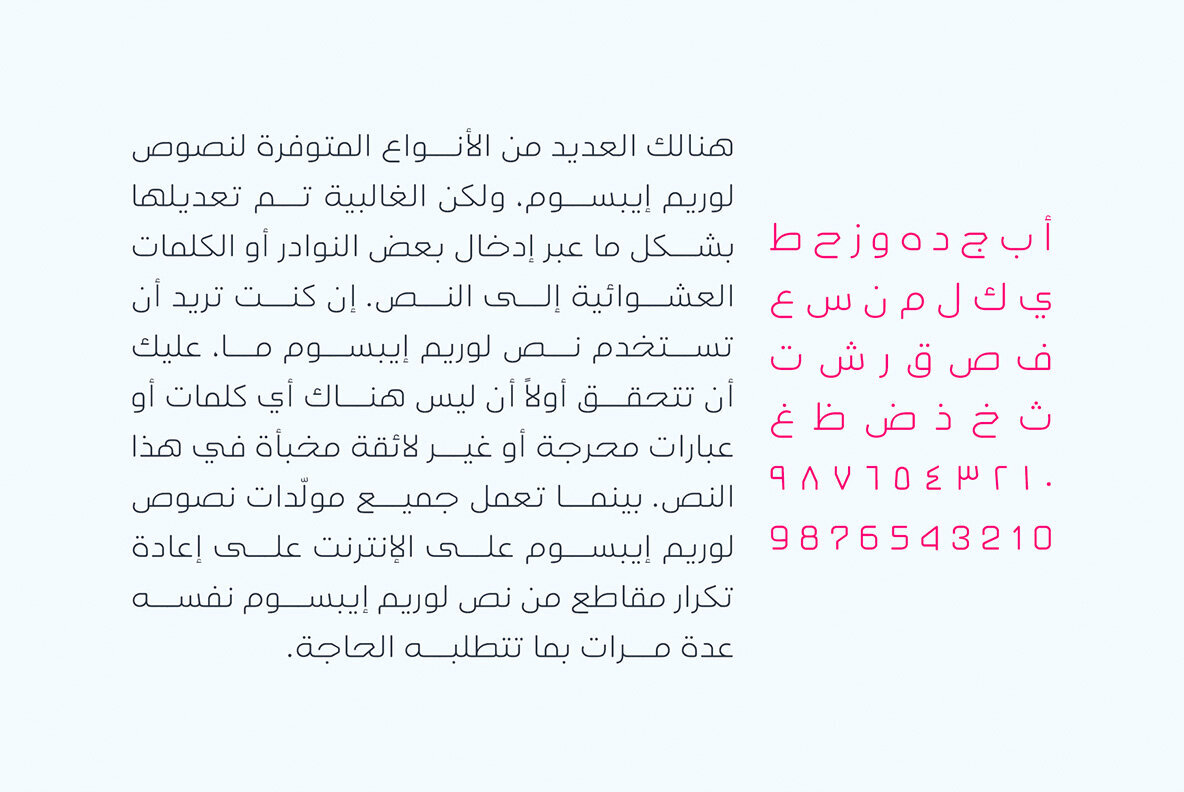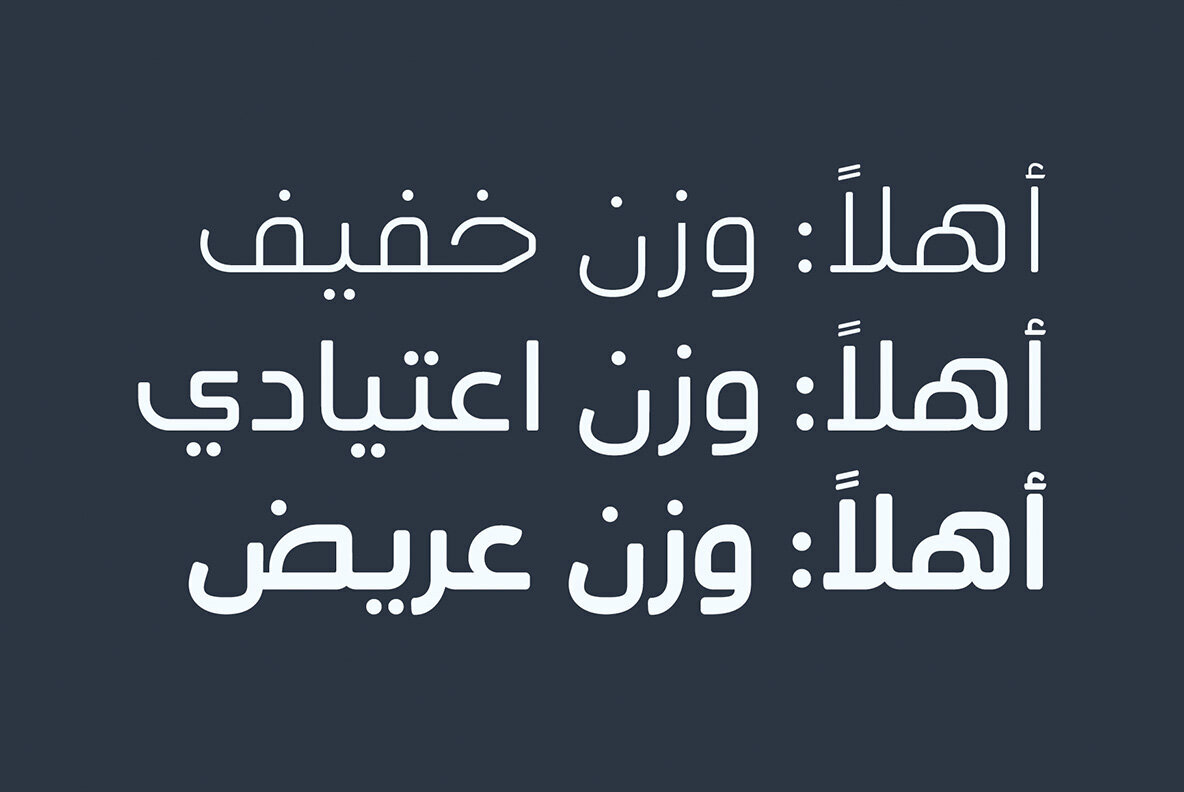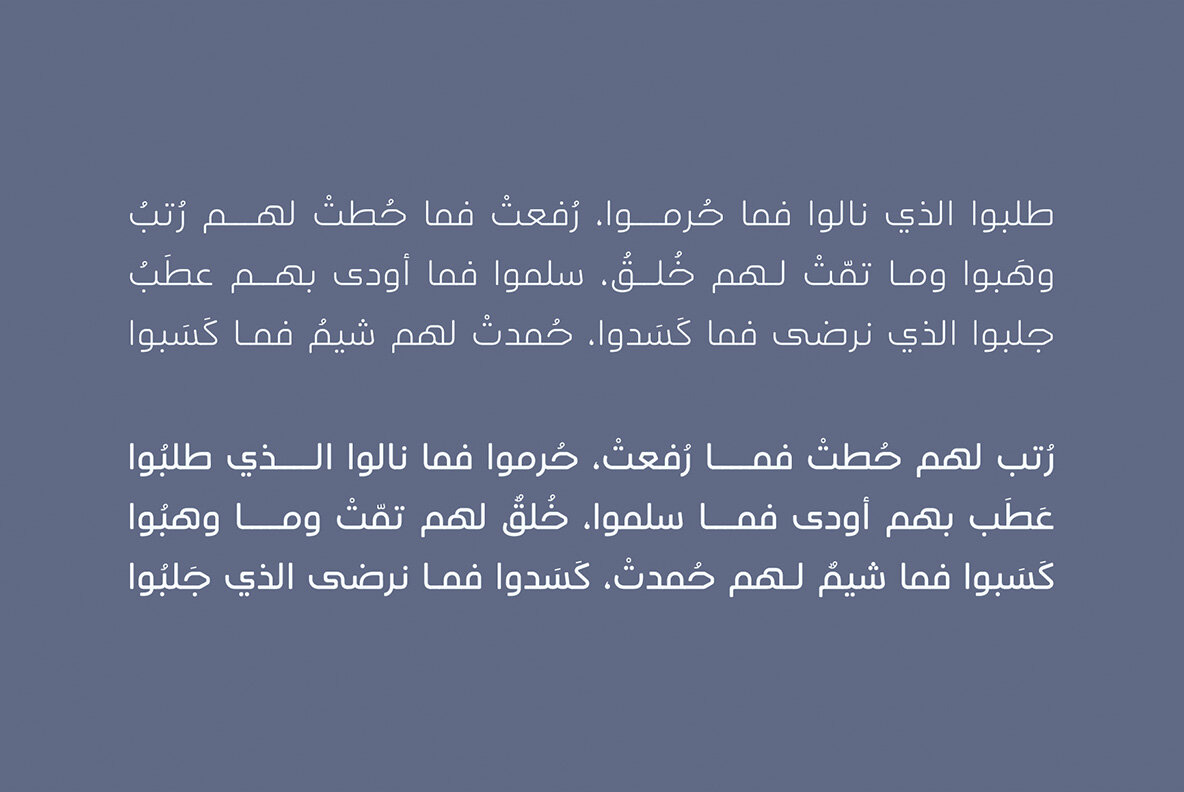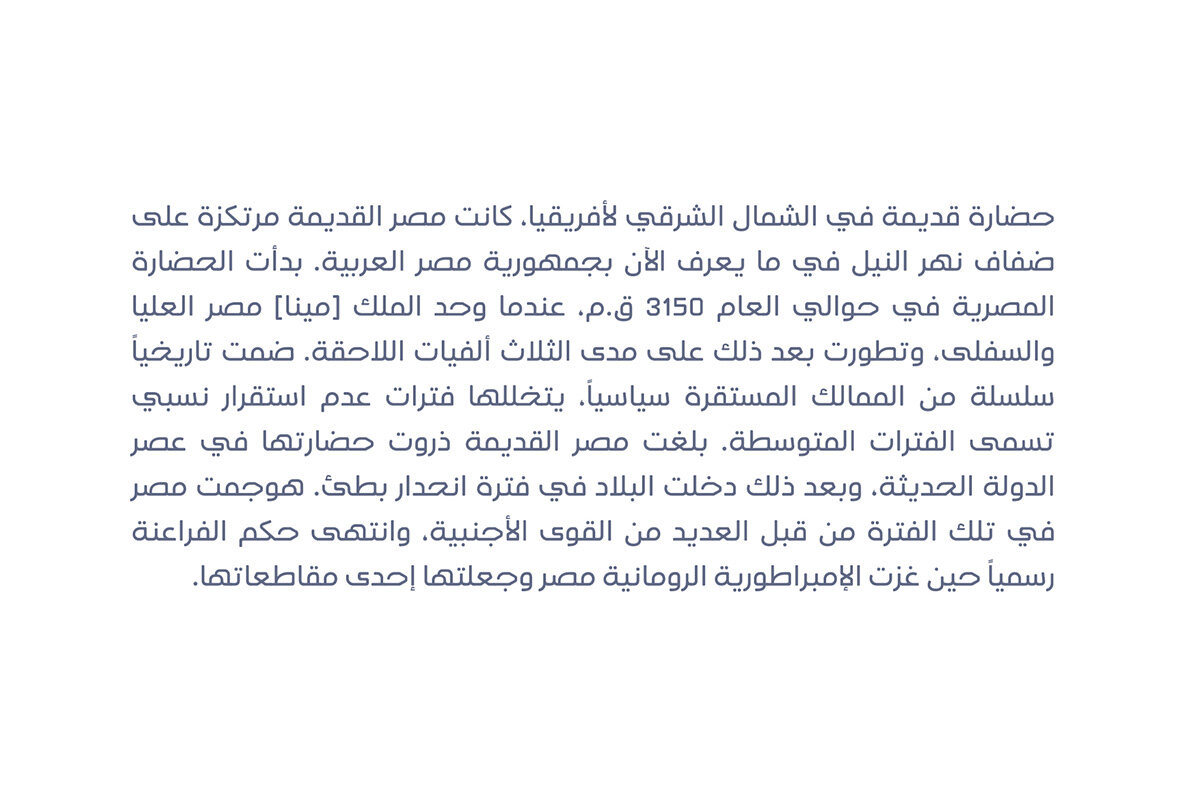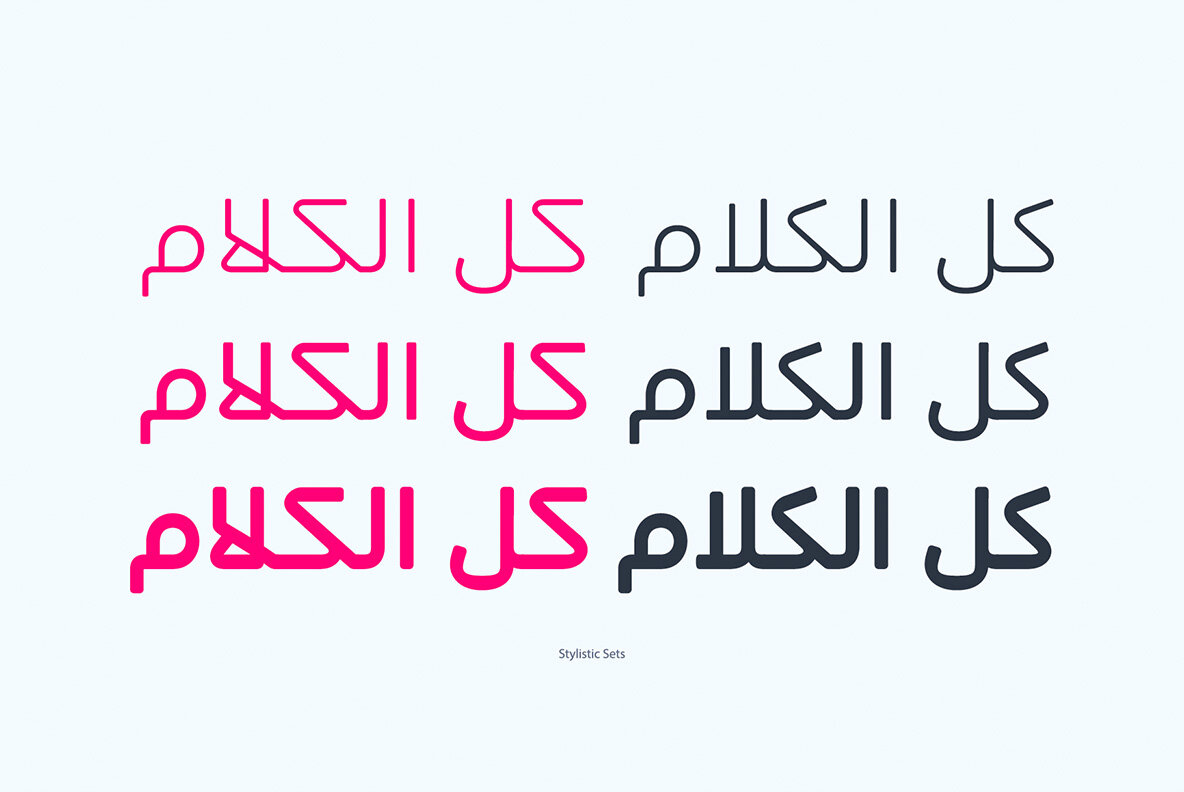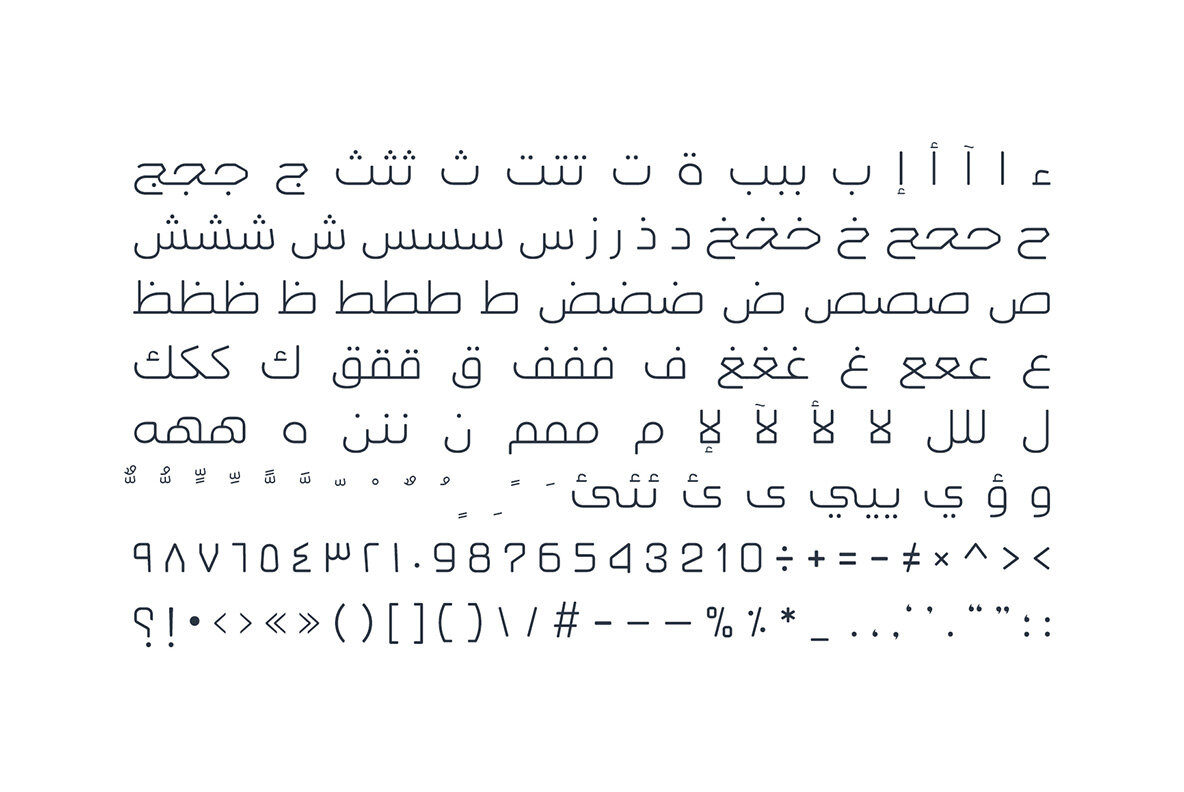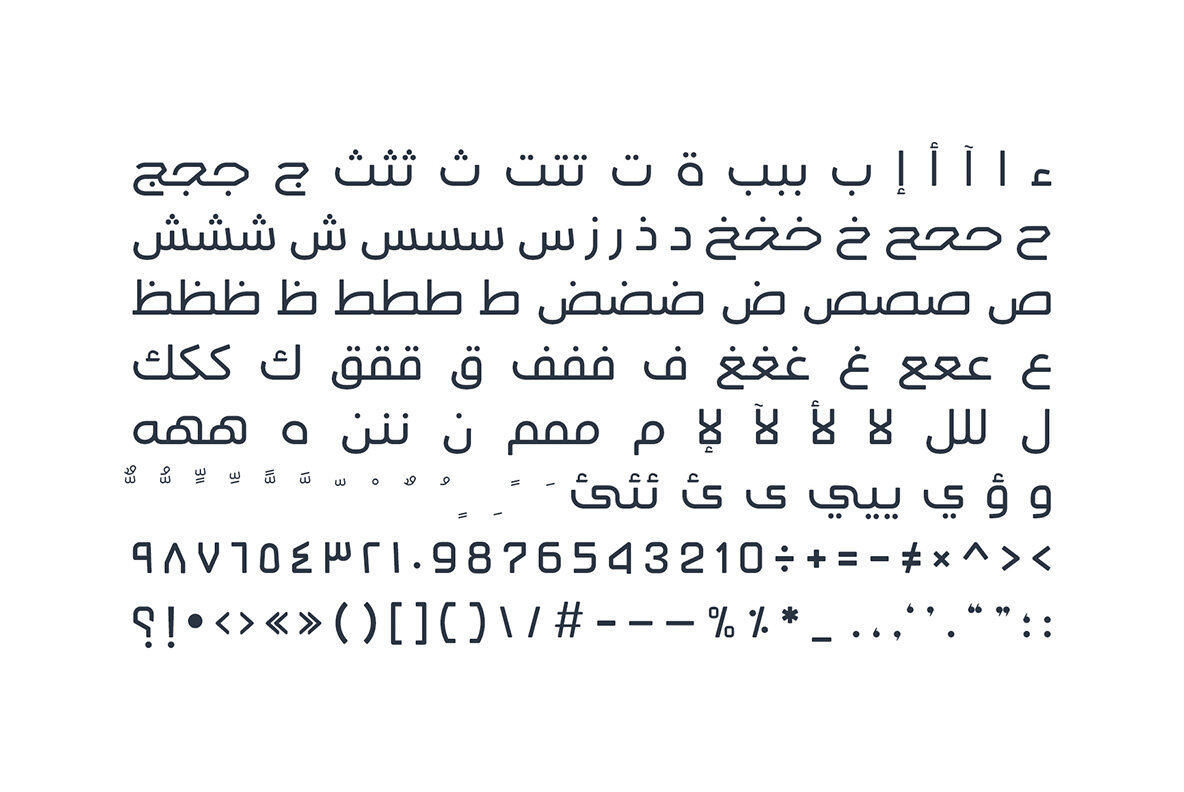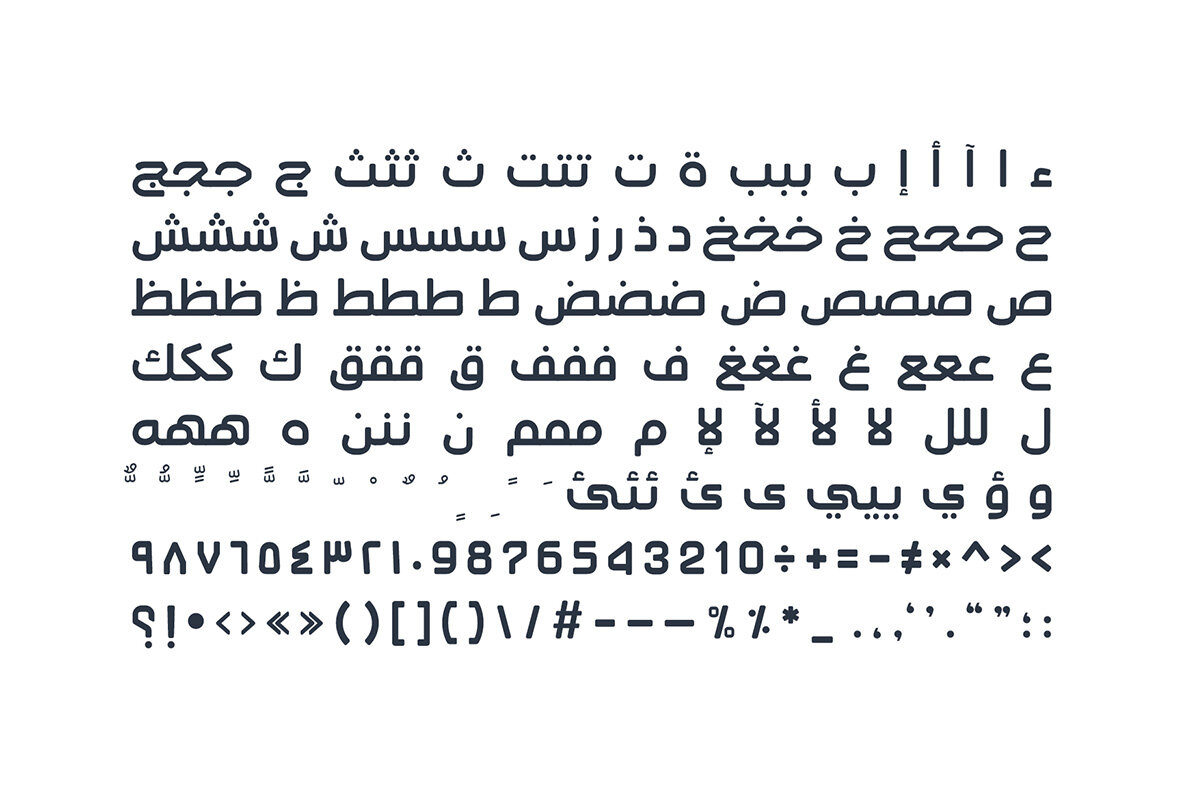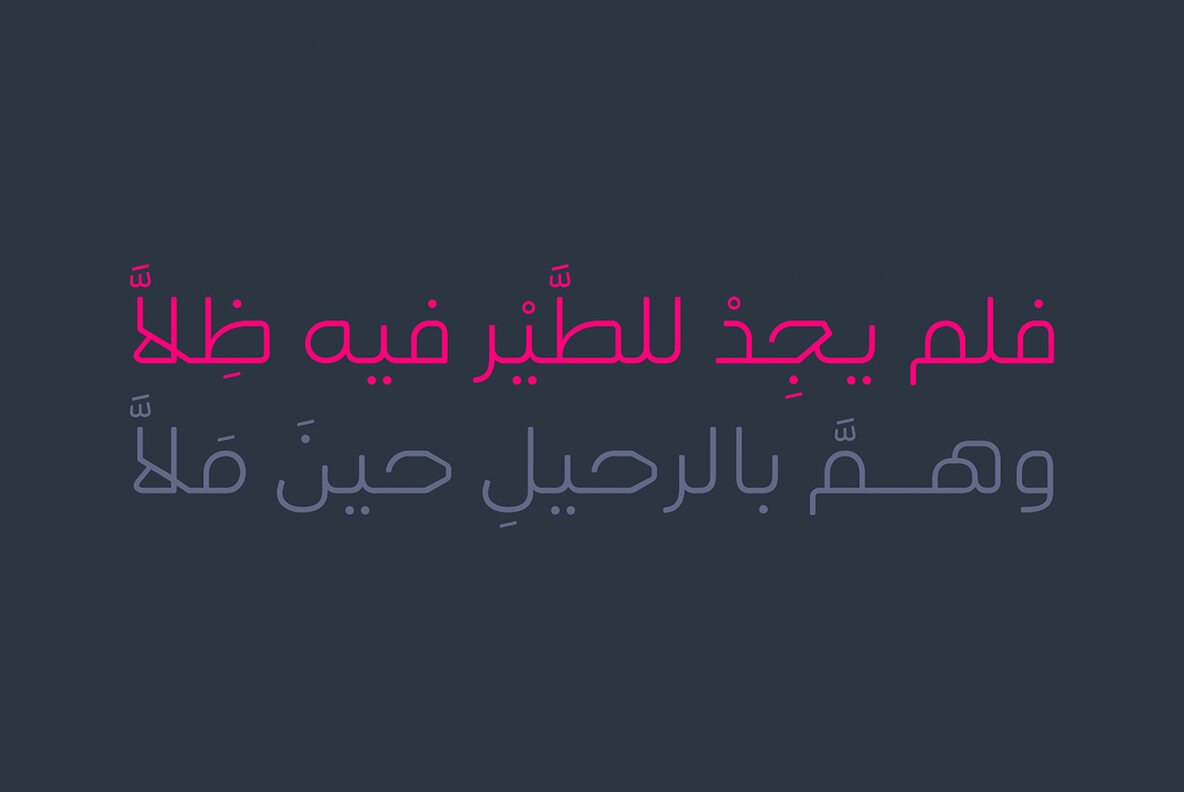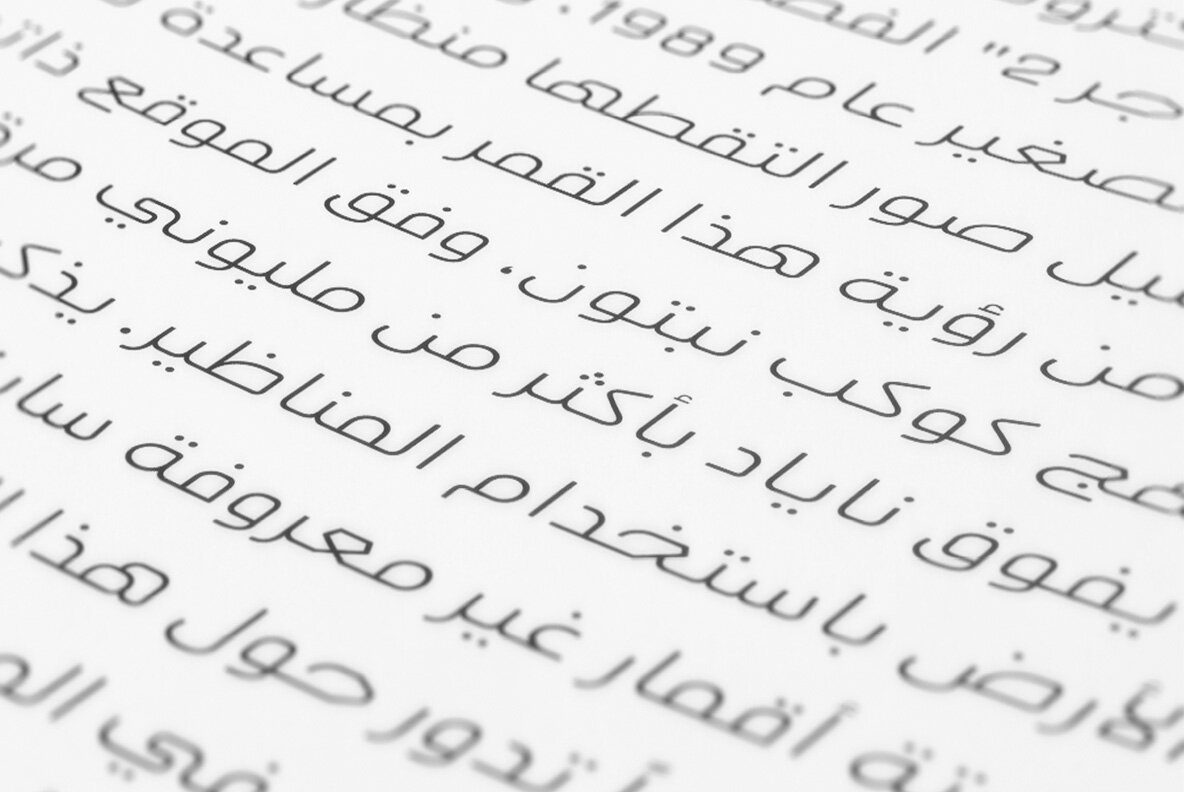
Ahlan is an Arabic typeface with modern geometric anatomy, soft corners and smooth terminals. The typeface consists of three weights (light, regular and bold) and it suits various range of design applications including web, advertising and print.